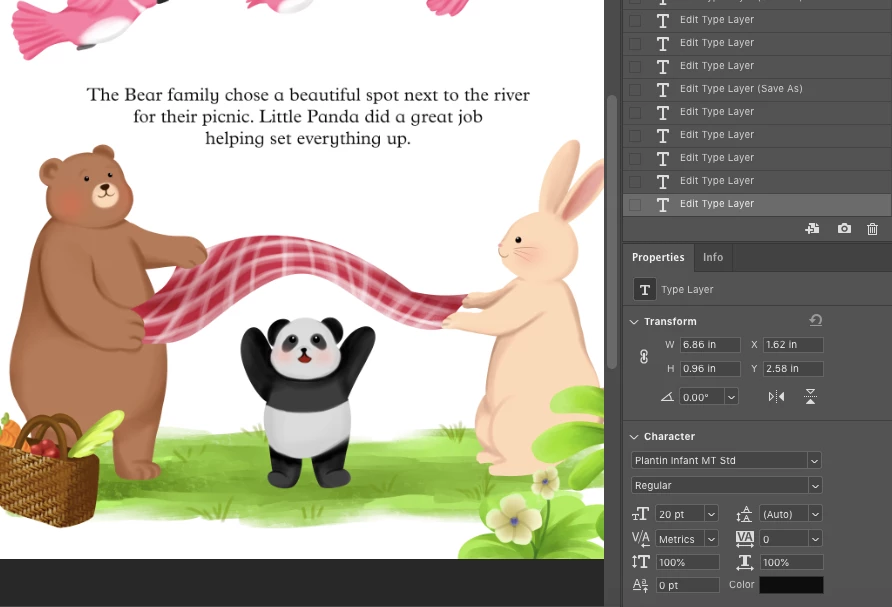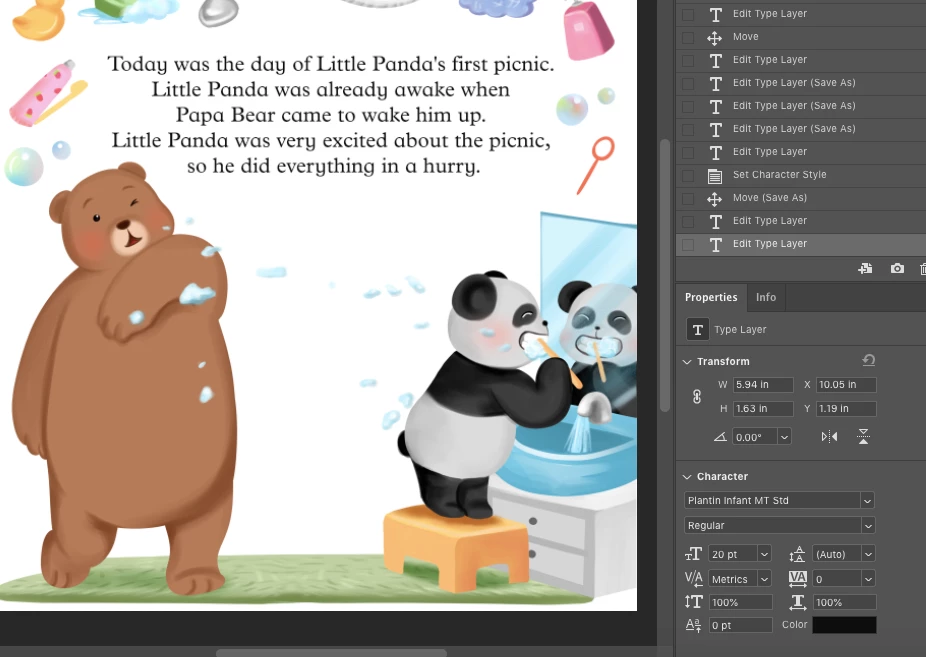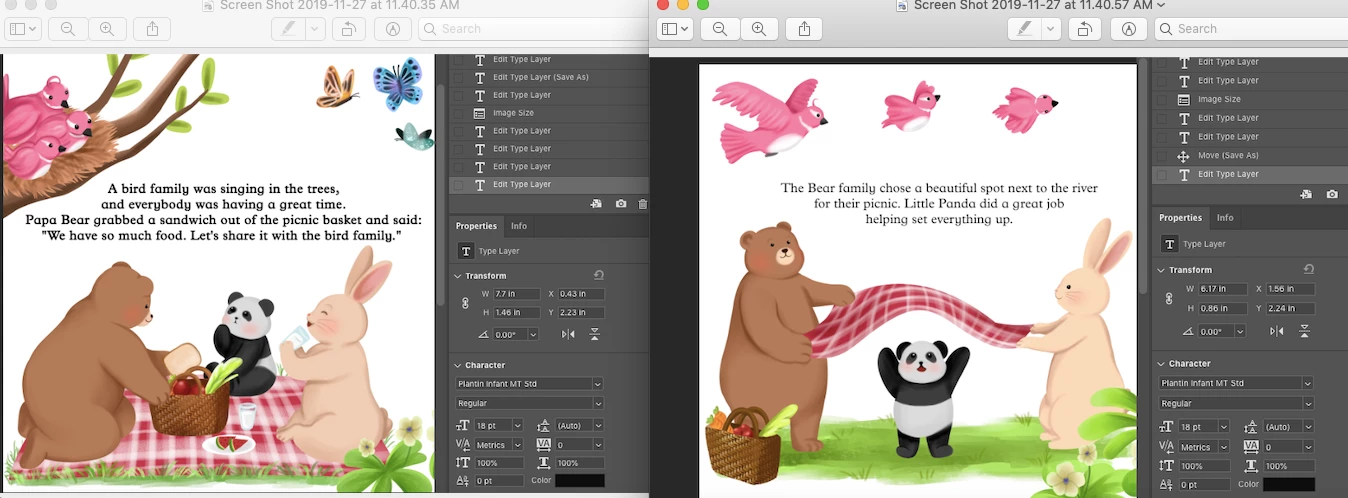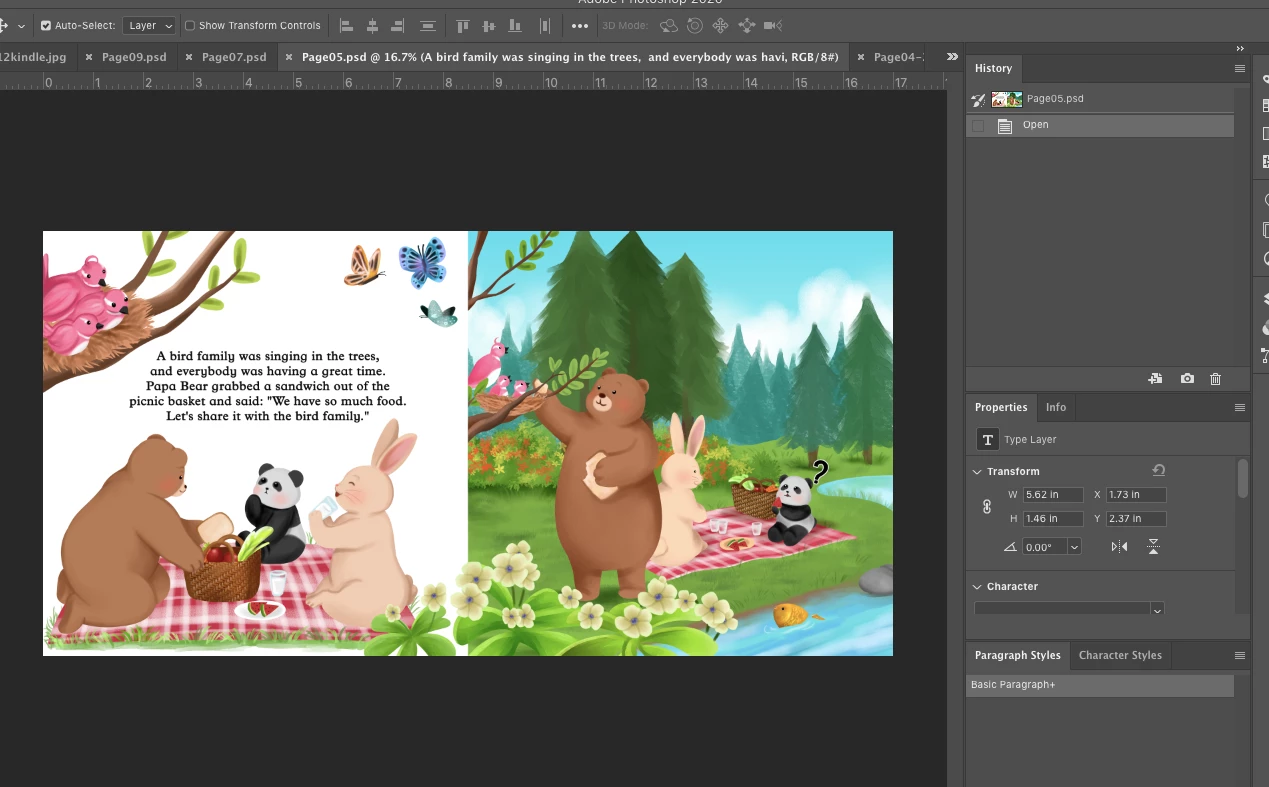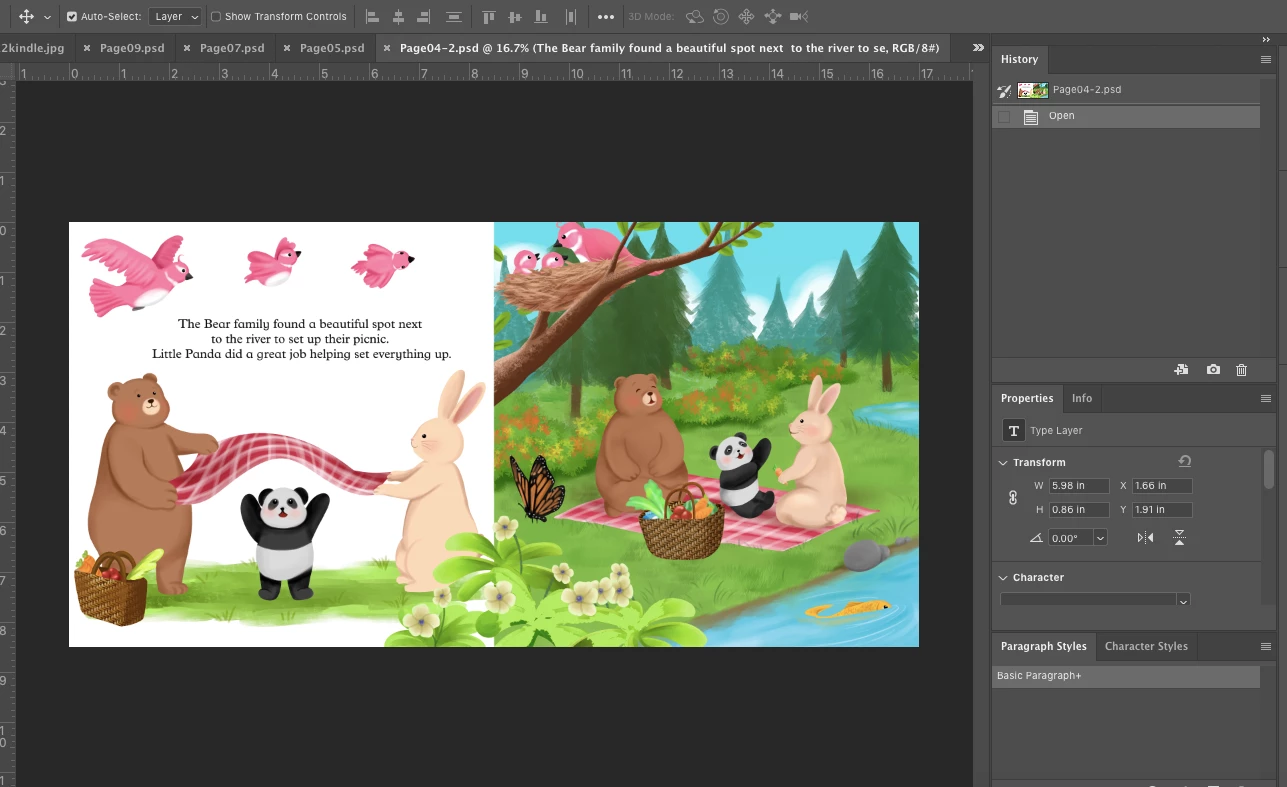
Text looks different despite same font and same size! PLEASE HELP
As the title says, I having issues with my fonts. They are the exact same size and font style but they look very different in size and thickness. What is going on and how can I fix it?
here 2 more screenshots. The fonts look completey different. Like one os thinker. What is this I am losing my mind!
Post a much larger screenshot showing the document dimensions and zoom level.
here 2 more screenshots. The fonts look completey different. Like one os thinker. What is this I am losing my mind!